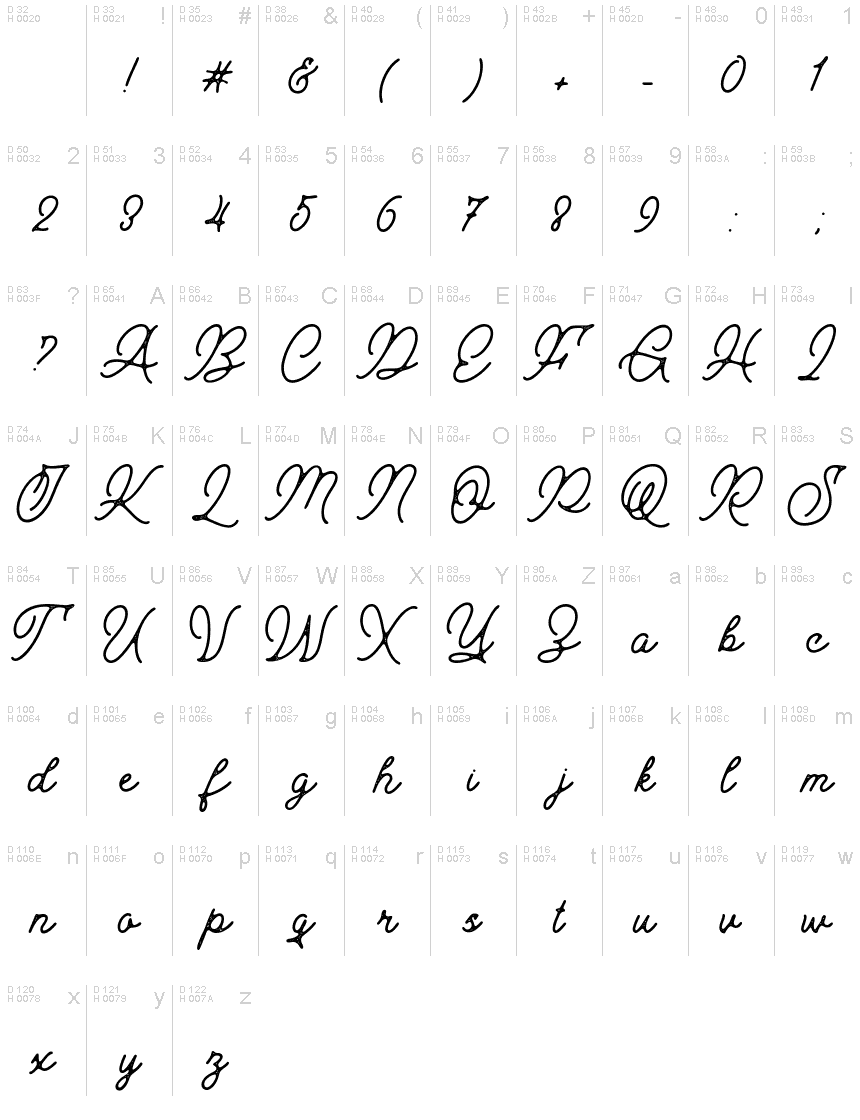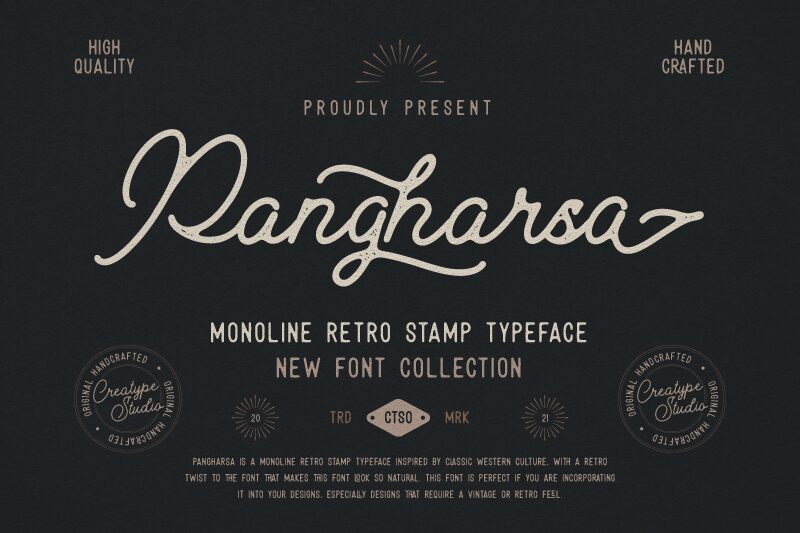
Pangharsa Regular
Pangharsa Regular is a gorgeous monoline retro calligraphy font that will take your designs to the next level. The light weight adds an elegant touch, making it perfect for wedding invitations, greeting cards, and feminine branding projects. The fluid strokes of this typeface will add a touch of sophistication to any design. Whether you're creating modern calligraphy or vintage-inspired designs, Pangharsa Regular is the perfect font for adding a touch of class and beauty to your projects. Get creative with this stunning font family from Creatype Studio!